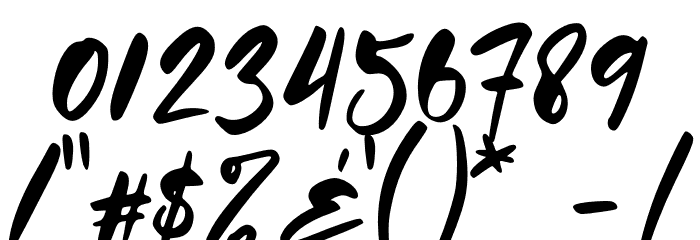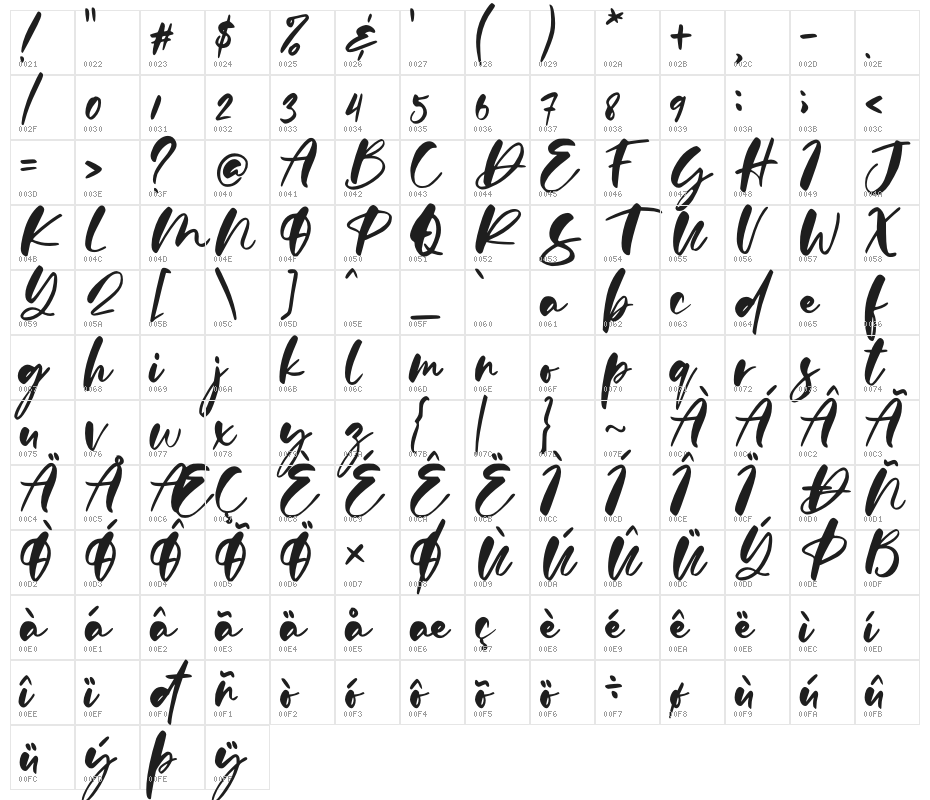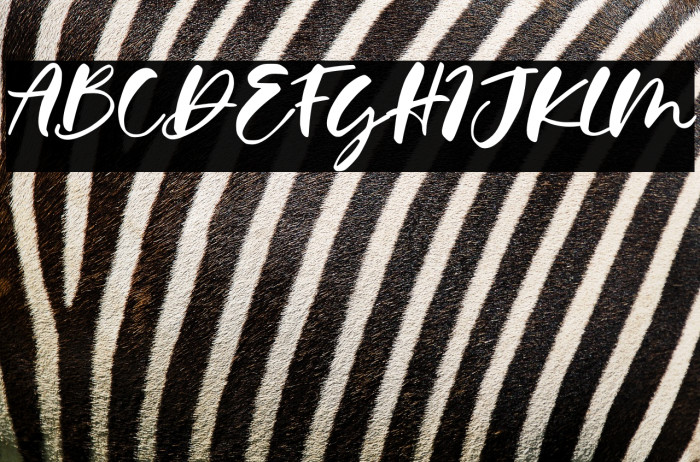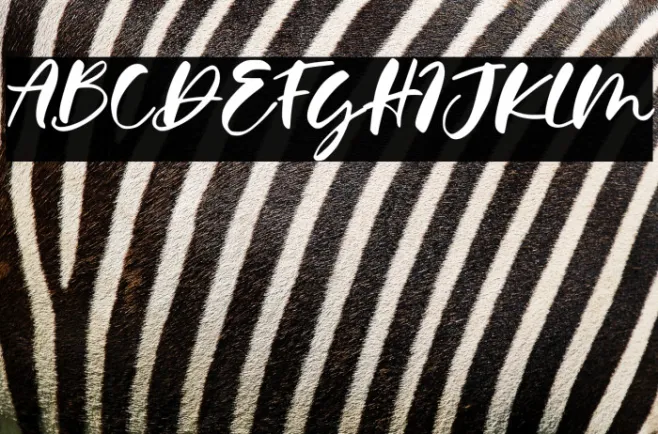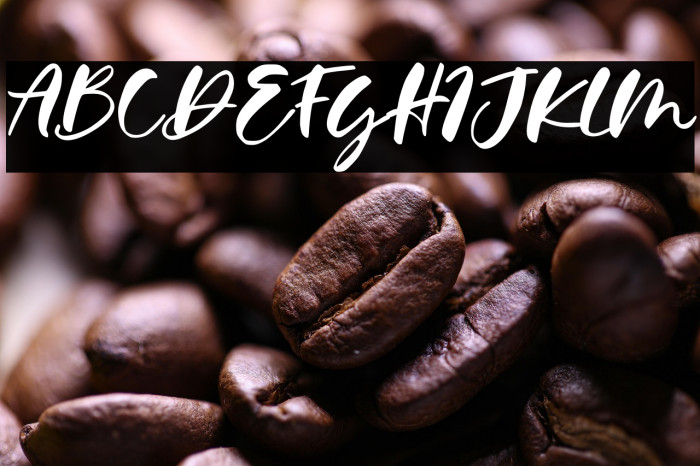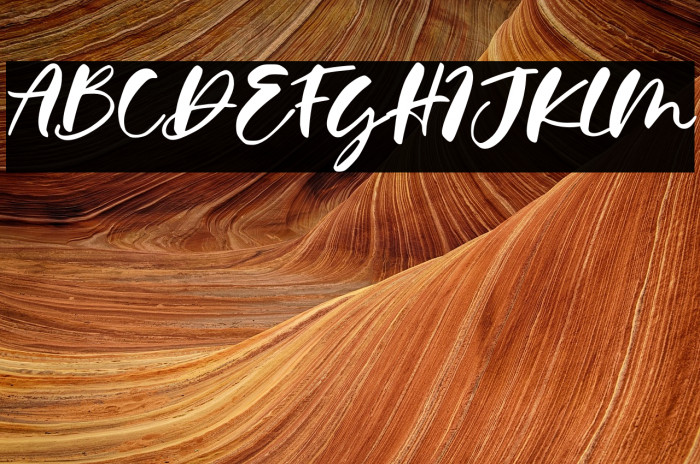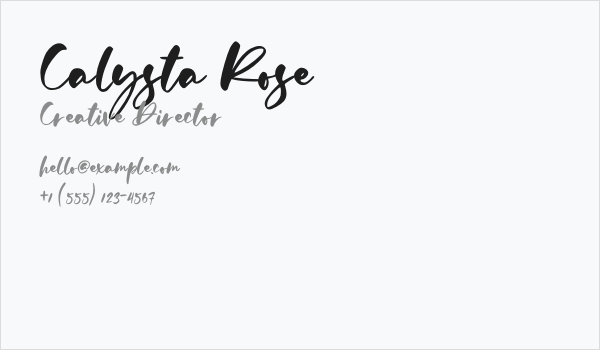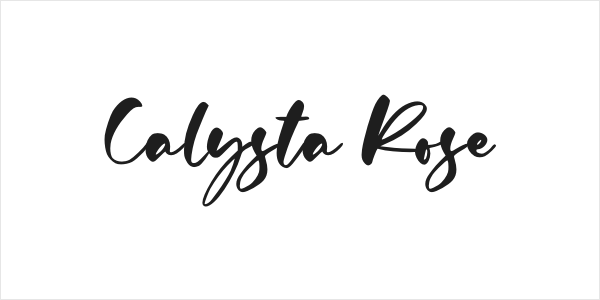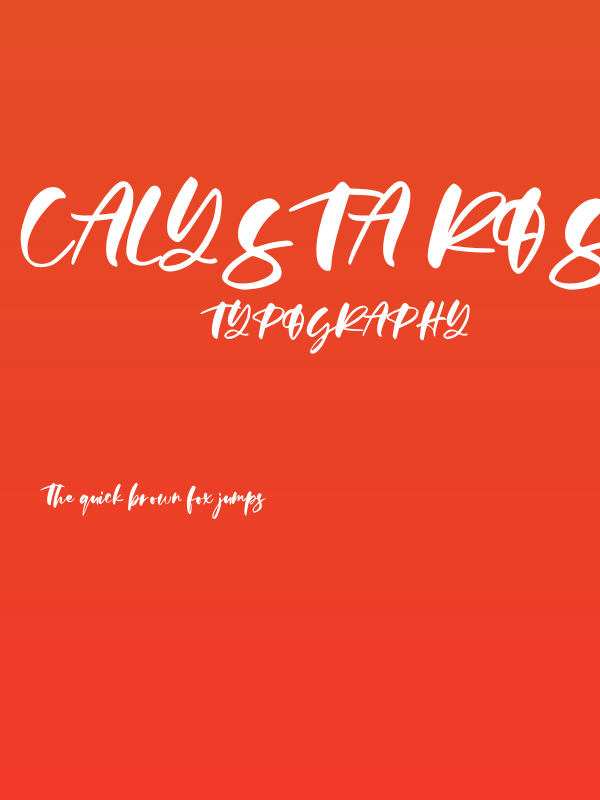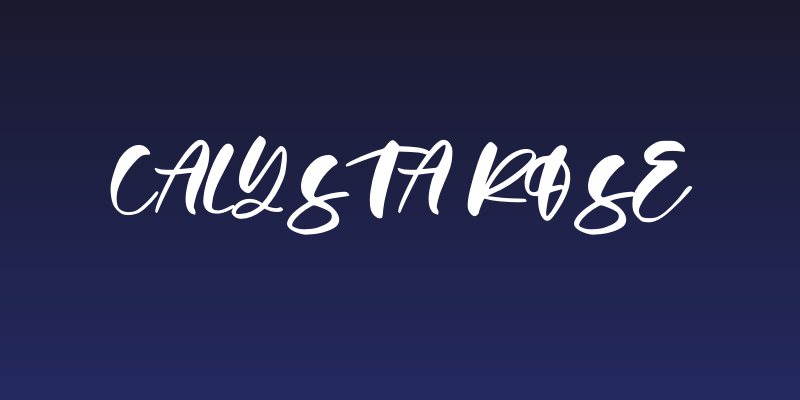
Calysta Rose Font
Calysta Rose Description
This font features a dynamic and expressive handwritten style, characterized by fluid strokes and a natural flow. The uppercase letters are bold and slightly slanted, giving a sense of movement and energy. The lowercase letters maintain a consistent style with a playful and casual appearance. Numbers and special characters are crafted with the same attention to detail, ensuring a cohesive look across all elements. The overall design is both artistic and legible, making it suitable for a variety of creative applications.